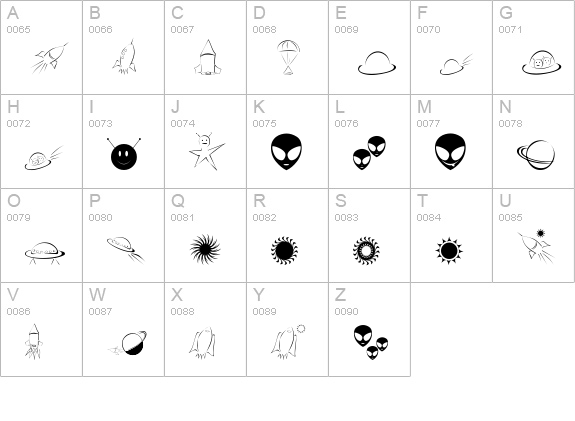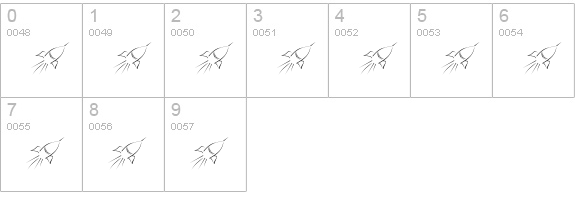
Spacey JHB Font Details
Spacey JHB is a captivating and futuristic font that will transport you to the outer reaches of the cosmos. With its sleek and modern design, this font embodies the essence of space exploration and technological advancement. Its unique and edgy letterforms will add a touch of sophistication to any project, whether it's a logo, website, or print design. But what sets Spacey JHB apart from other fonts is that it is not only visually stunning, but also freely available to download. That's right, you can unleash your creativity and take your designs to new heights without having to worry about breaking the bank. Simply head over to FontsMarket.com and discover the wonders of Spacey JHB, ready to be downloaded and used in all your projects. With Spacey JHB, the possibilities are endless. Whether you're working on a sci-fi movie poster, a space-themed event invitation, or a futuristic branding project, this font will bring your vision to life. Its clean lines and futuristic aesthetic will captivate your audience and leave a lasting impression. So why wait? Embrace the futuristic allure of Spacey JHB and let your creativity soar to new dimensions. Download this free font from FontsMarket.com and embark on an extraordinary design journey that will leave a lasting impact. With Spacey JHB, the stars are the limit.